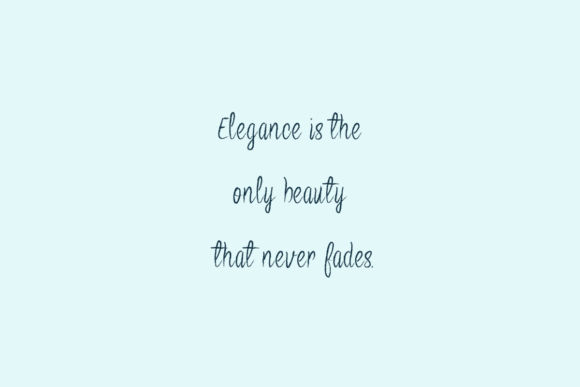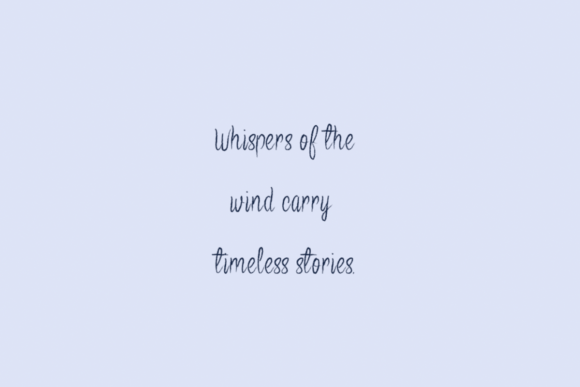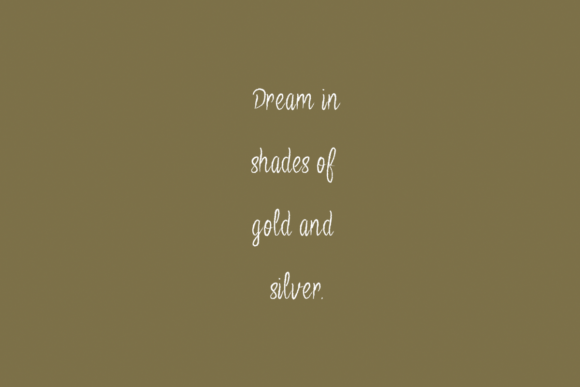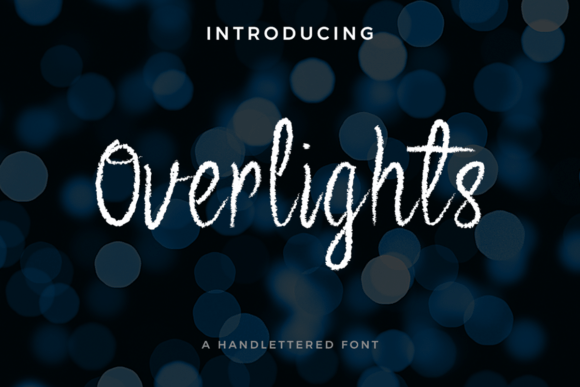
Introduction to Overlights Font
Introducing Overlights, a delightfully distinctive font that seamlessly blends the charm of handwritten text with the elegance of handlettered script.
This enchanting typeface is infused with a palpable sense of creativity, making it perfect for any ambitious creative project As unique as it is lovely, Overlights is a testament to the beauty that can be found in the fusion of simplicity and sophistication.